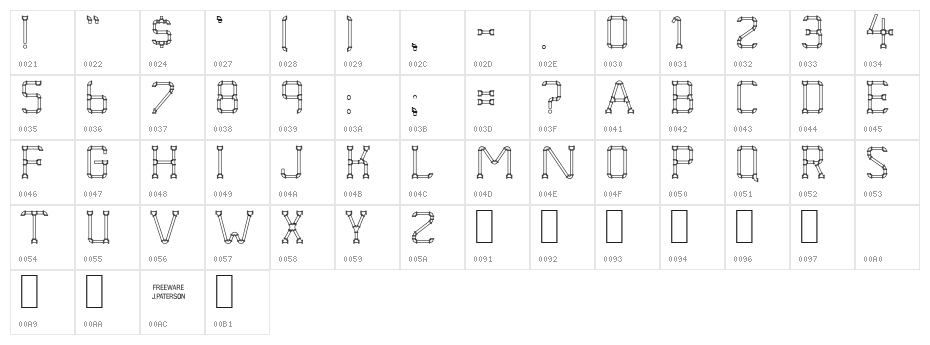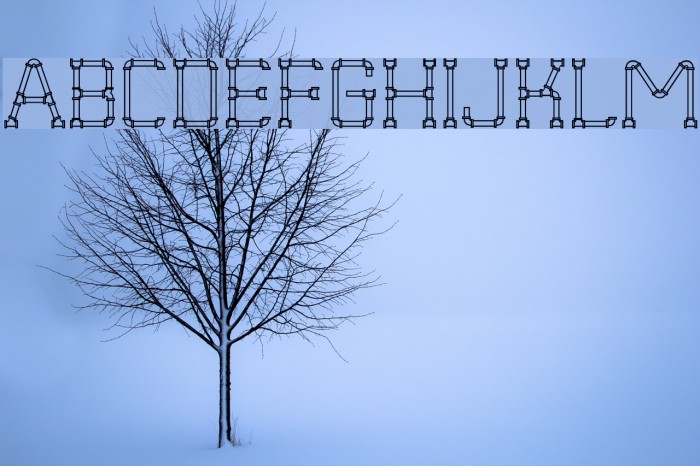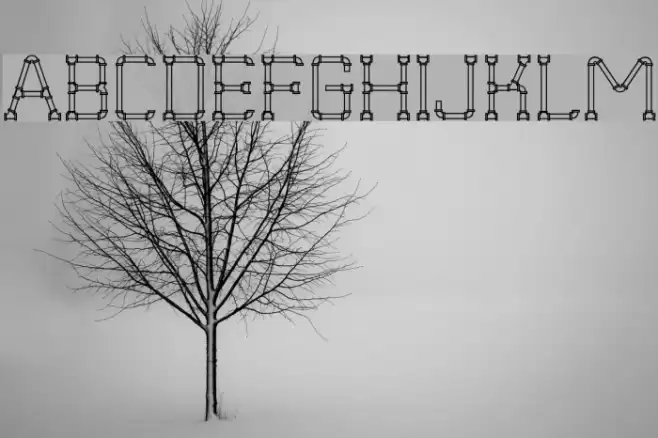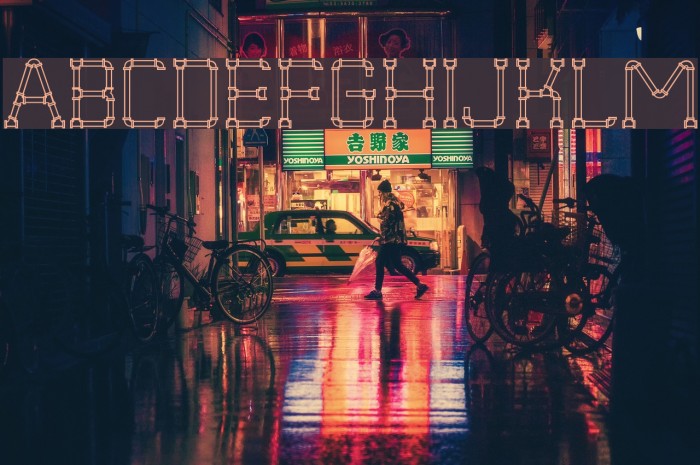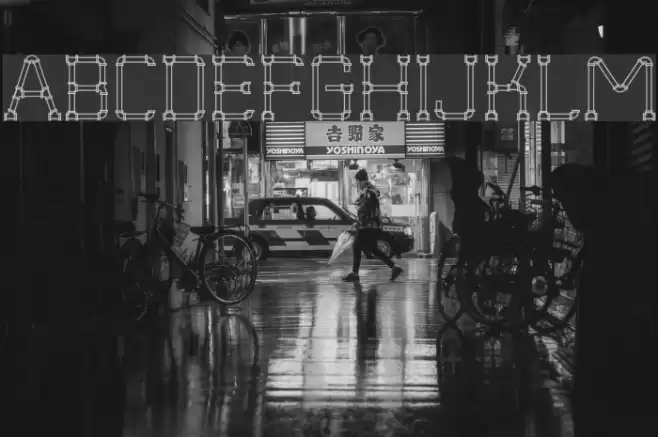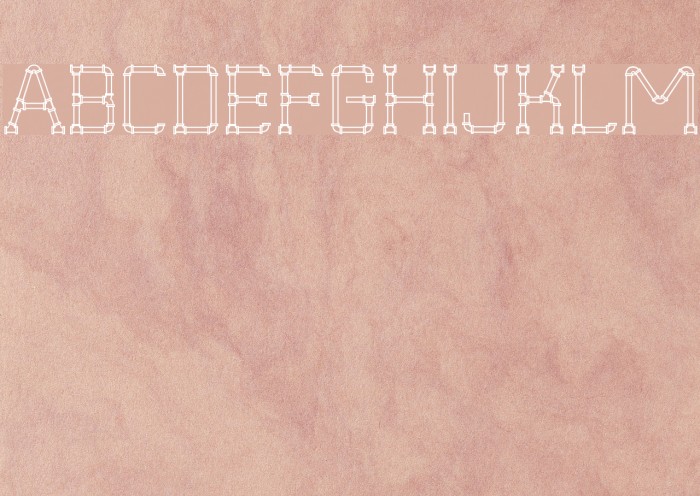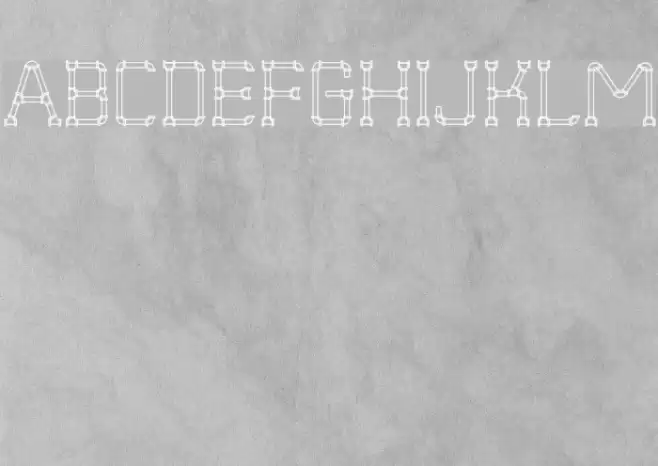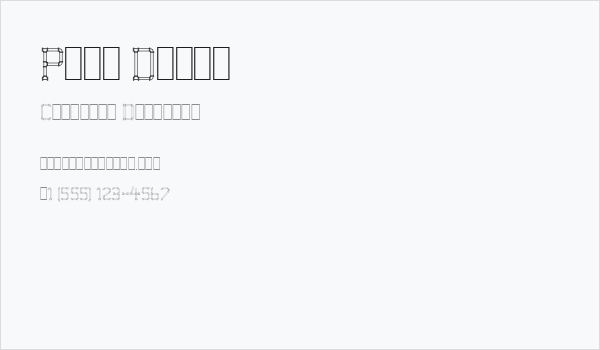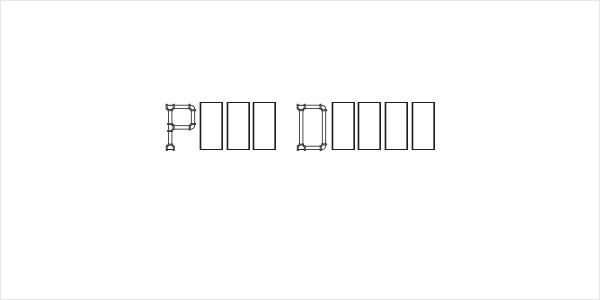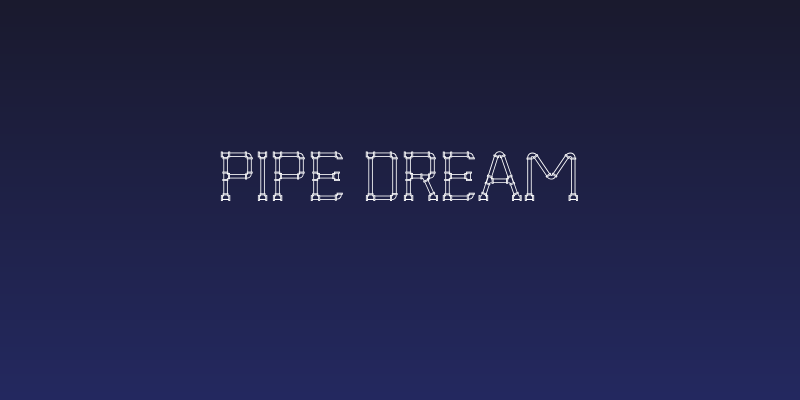
Pipe Dream Font
Pipe Dream Description
This font features a unique and industrial design, reminiscent of interconnected pipes or mechanical structures. Each character is constructed with a series of lines and joints, giving it a three-dimensional, technical appearance. The uppercase letters are bold and structured, while the numbers and special characters maintain the same mechanical theme. The font lacks lowercase letters, focusing on a robust and industrial aesthetic. Its geometric and modular style makes it stand out, ideal for projects that require a modern and mechanical look.
| Overall Style | Modern, Industrial |
| Proposed Projects | Ideal for industrial-themed posters, technical manuals, video game graphics, and branding for engineering firms. |